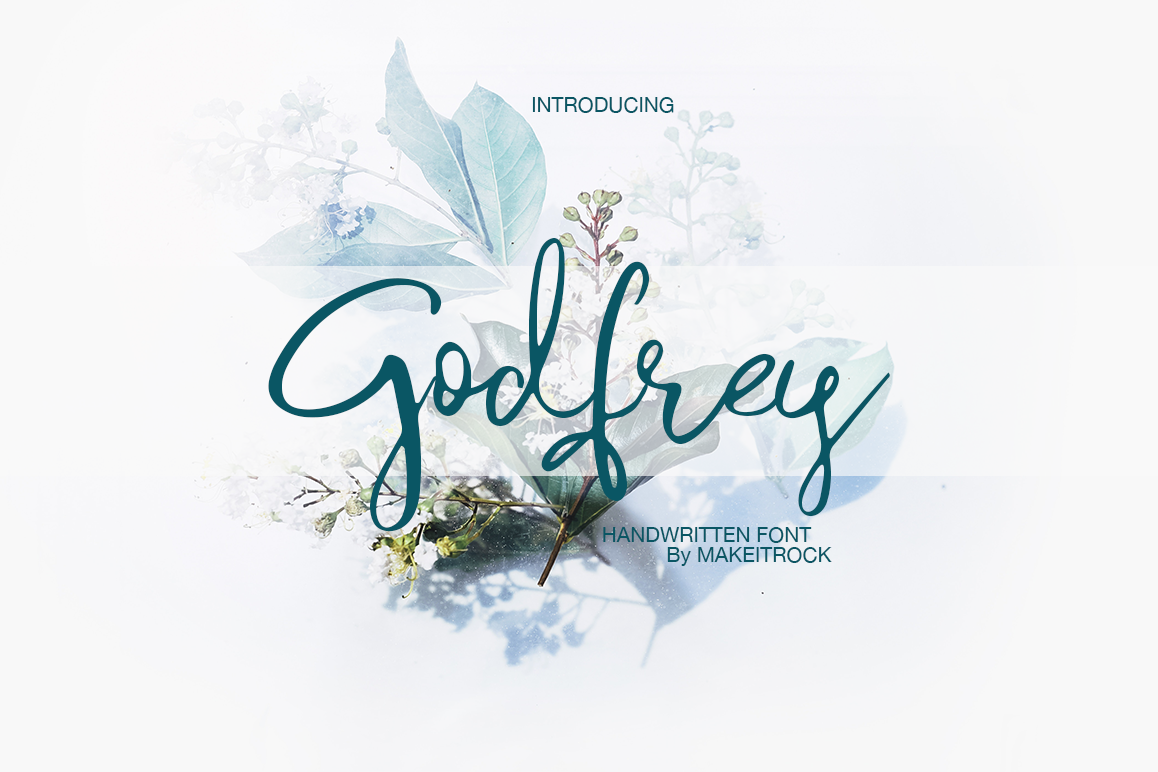
Godfrey
***Godfrey****
A new fresh handmade summer loving calligraphy font.Very suitable for greeting cards, branding materials, business cards, quotes, posters, and more!This font are perfect for wedding postcard. Or you can create perfect and unique design of your logo, blog, stationery, marketing, magazines and more :)